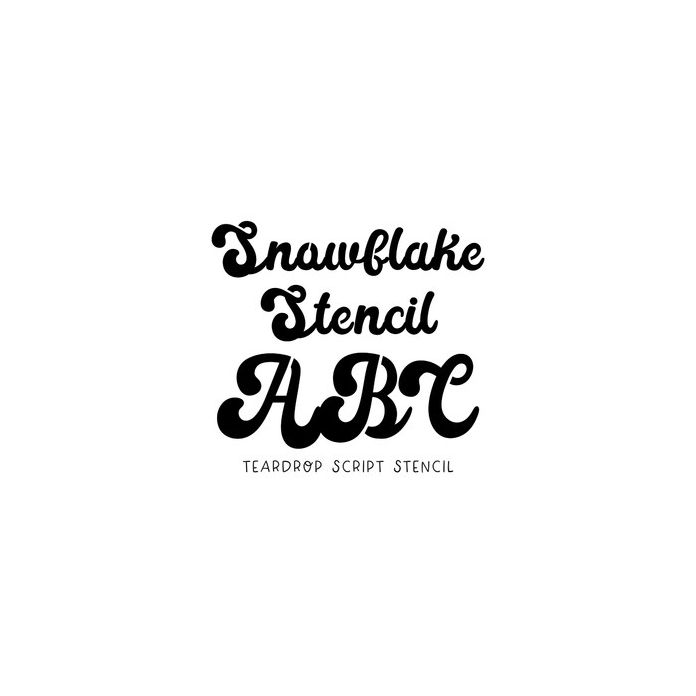
BFC Snowflake Stencil Retro Teardrop Script Font
Snowflake Stencil is a retro teardrop script font in a stencil version. The reg version of this font is called Snowy Rain.